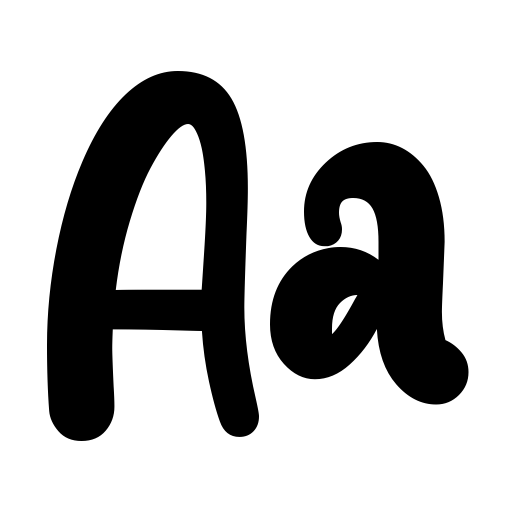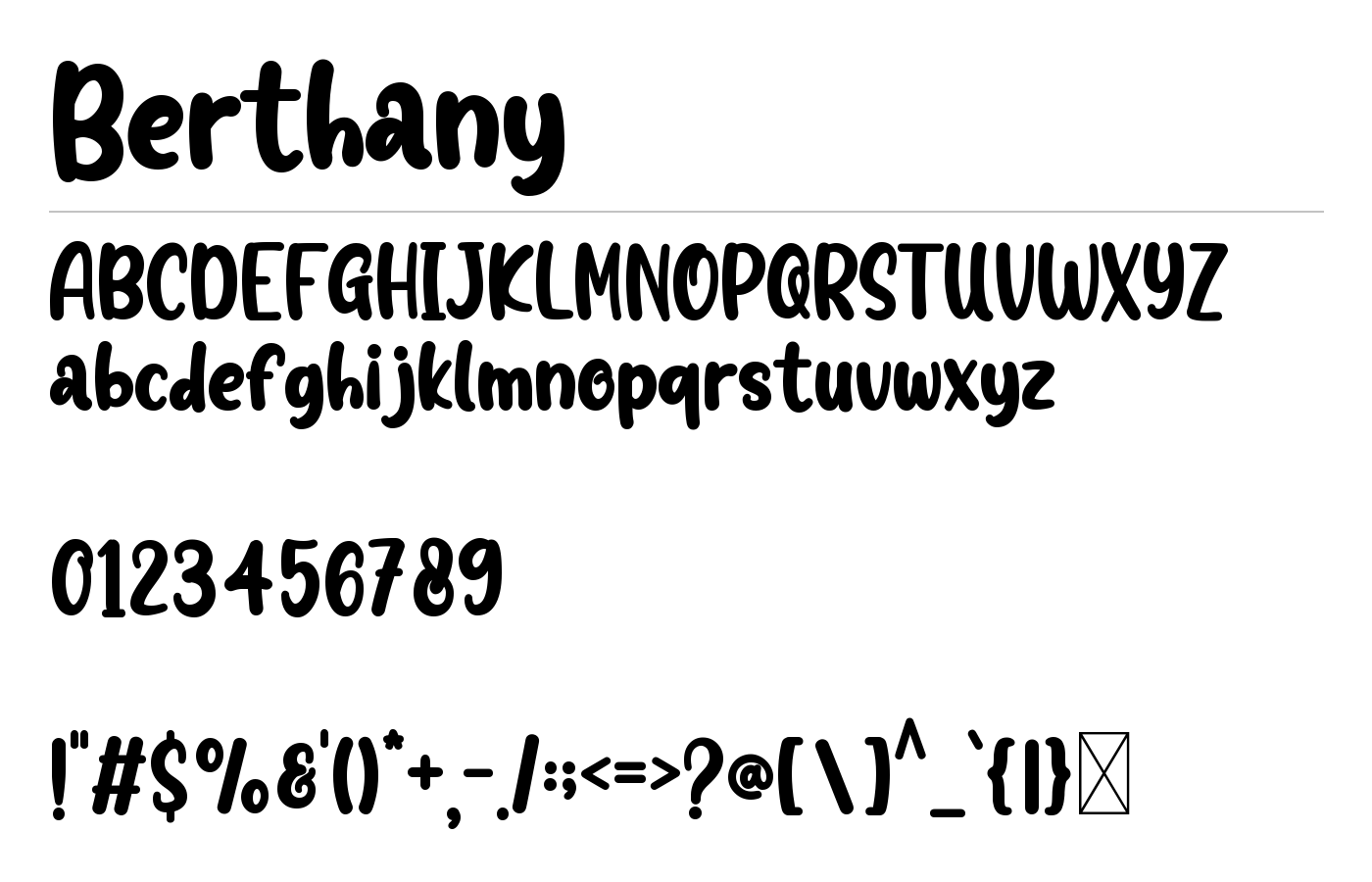
Berthany is a playful and friendly sans serif font with rounded, slightly irregular letterforms that give it a hand-drawn, casual feel. Its bold weight and uniform stroke width make it highly legible and approachable, perfect for designs seeking warmth and personality, such as children's books, informal branding, or fun packaging. This font’s charm shines in headlines and display contexts where a lively, inviting tone is desired.
Berthany Font
About Berthany Font
| Designer | Risma Ramawi |